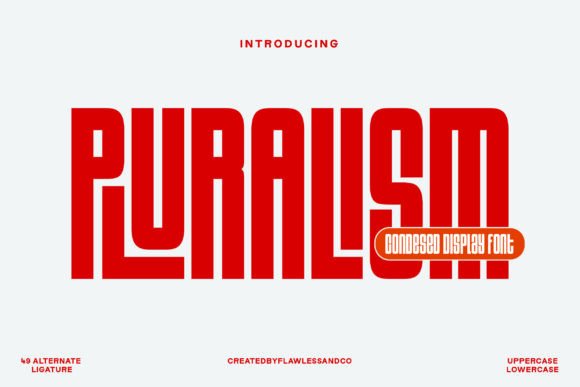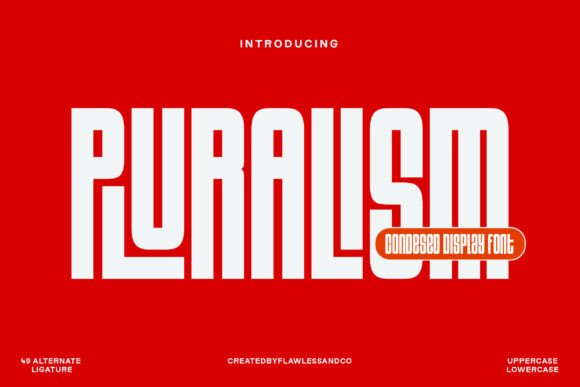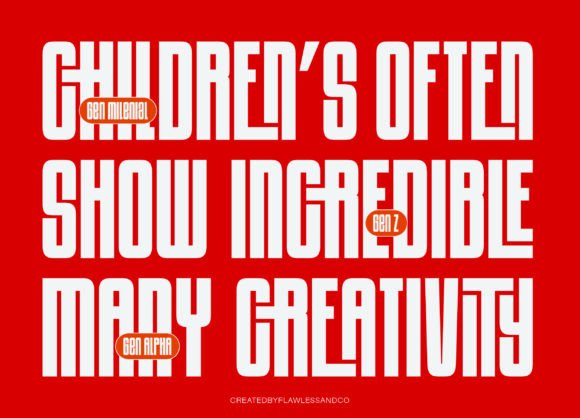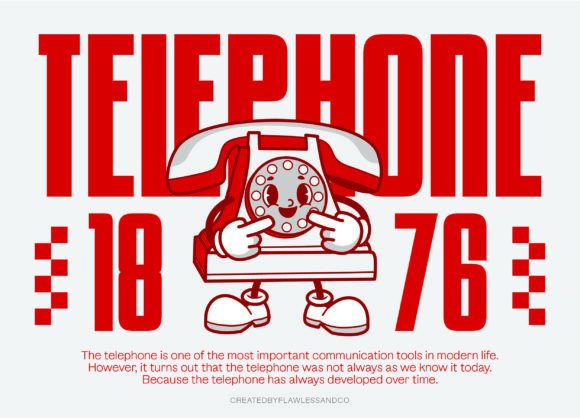
Plularism Font
About the Plularism Font
Crafted with precision, the Plularism Font is ready to bring your ideas to life. Pluralism is a condensed display sans serif font that combines modern aesthetics with bold, impactful letterforms. Its sleek and compact design makes it perfect for headlines, posters, branding, editorial layouts, and advertising materials. Pluralism is ideal for projects that require a strong and contemporary visual presence while maintaining excellent readability.
Pluralism’s bold, condensed forms excel in headlines, short impactful statements, and logos. It’s a strong choice for branding projects aiming for a modern and confident feel, particularly in technology, fashion, or corporate settings. However, its condensed nature makes it less suitable for body text or lengthy paragraphs; readability suffers at smaller sizes.
Pairing Pluralism effectively depends on the desired emphasis. For a sophisticated look, consider a clean serif like Garamond or a geometric sans-serif like Futura. To create a more energetic feel, a playful script like Allura or a rounded sans-serif like Lato would work well.
Overall, Pluralism projects a modern, assertive personality, best suited for brands and projects that demand attention and convey strength and innovation.